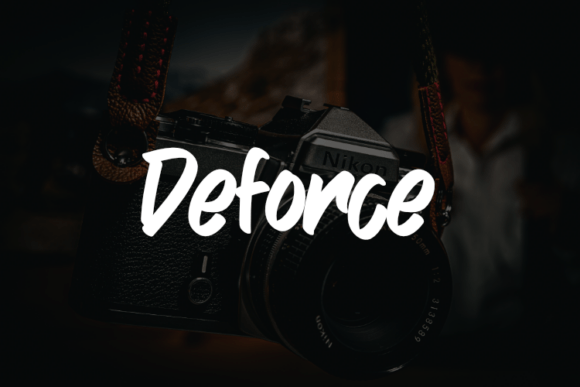
Unveiling Deforce: The Ultimate Font for All Your Design Needs
In the world of design, fonts play a crucial role in conveying the intended message and creating a lasting impression. With numerous fonts available, finding the perfect one that combines elegance, versatility, and compatibility can be a daunting task. However, if you’re looking for a font that ticks all the boxes, look no further than Deforce. In this article, we’ll delve into the world of Deforce, exploring its features, benefits, and applications, particularly in clothing and t-shirt design.
What is Deforce Font?
Deforce is a meticulously crafted font designed to meet the diverse needs of designers. Its unique blend of elegance and versatility makes it an ideal choice for various design projects, from clothing and t-shirt design to branding, advertising, and more. Deforce is not just a font; it’s a design solution that empowers creatives to produce stunning works.
The Perfect Fusion of Elegance and Versatility
Deforce boasts a distinctive style that effortlessly combines sophistication with a modern edge. Its elegant curves and lines make it perfect for designs that require a touch of refinement, while its versatility ensures it can adapt to a wide range of design contexts. Whether you’re creating a bold statement or a subtle hint, Deforce is up to the task.
- Elegant and Versatile: Deforce’s unique design makes it suitable for a wide range of design projects, from elegant and sophisticated to bold and playful.
Applications of Deforce Font
Deforce’s versatility makes it an excellent choice for various design applications, particularly in:
- Clothing and T-Shirt Design: Deforce is ideal for creating striking designs for clothing and t-shirts. Its elegant and bold styles ensure that your designs stand out.
- Branding and Advertising: Deforce can be used to create logos, taglines, and advertising materials that require a touch of sophistication and elegance.
- Graphic Design: Deforce is perfect for various graphic design projects, including brochures, posters, and business cards.
Benefits of Using Deforce Font
In conclusion, Deforce is a game-changing font that offers a perfect blend of elegance and versatility. Its compatibility with various design software and applications makes it an ideal choice for designers. Whether you’re creating clothing and t-shirt designs, branding materials, or graphic design projects, Deforce is the ultimate font for all your design needs. With Deforce, creating striking designs is not just a possibility, but a delightful certainty.